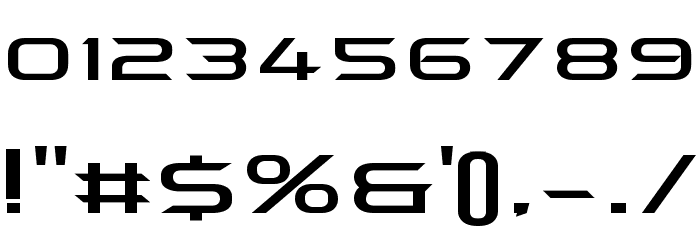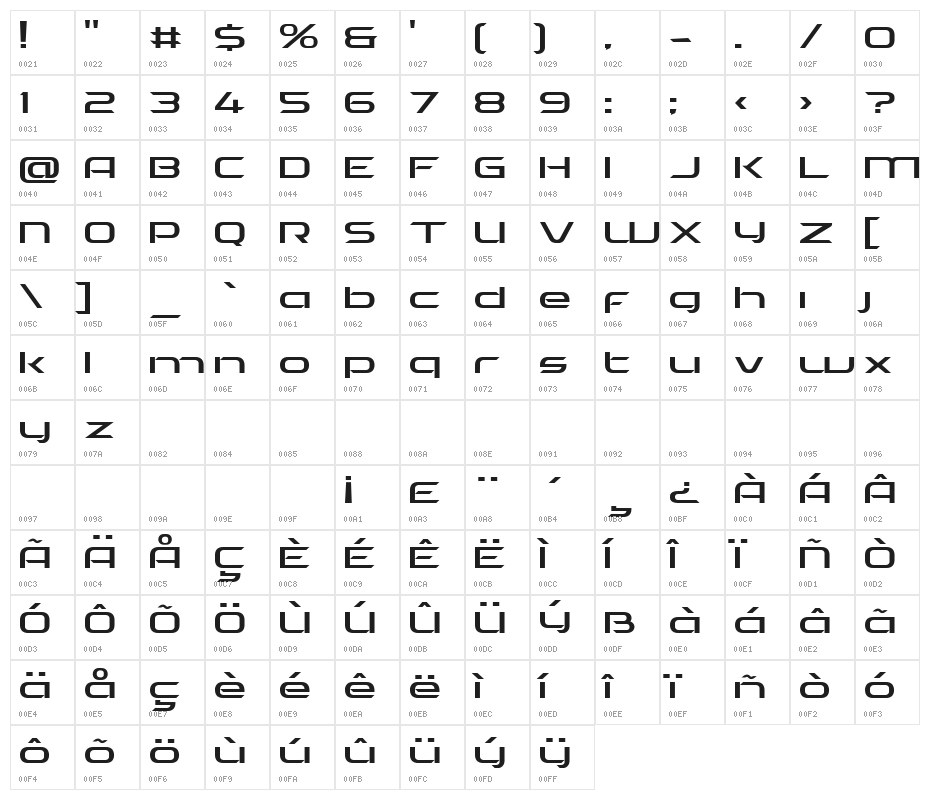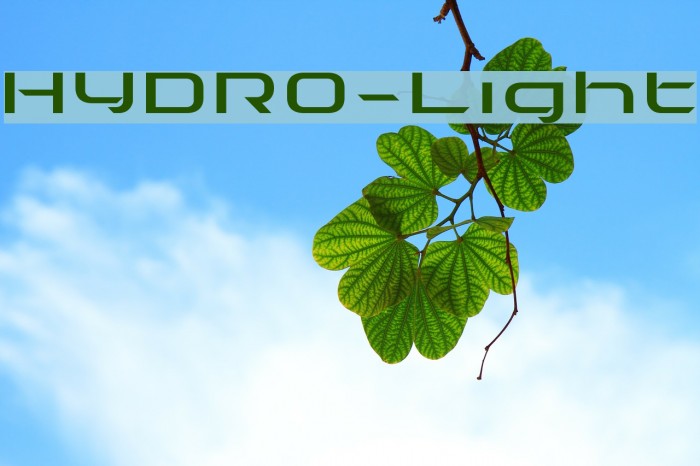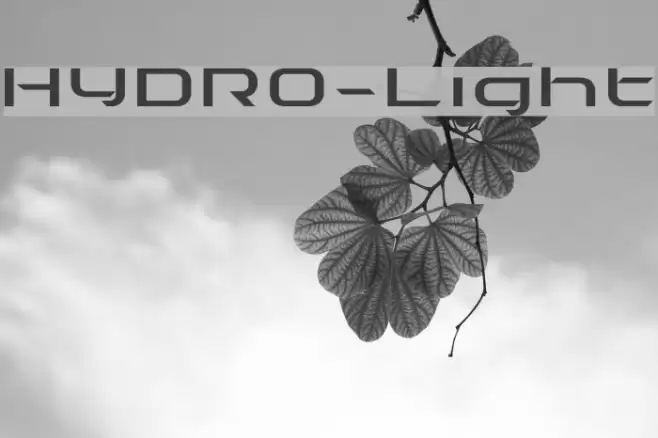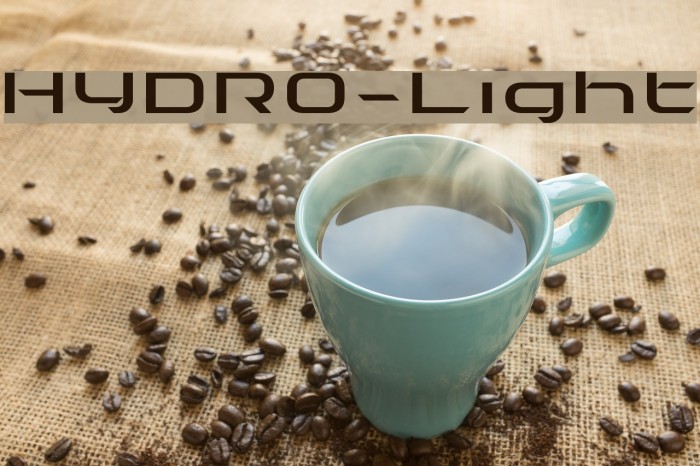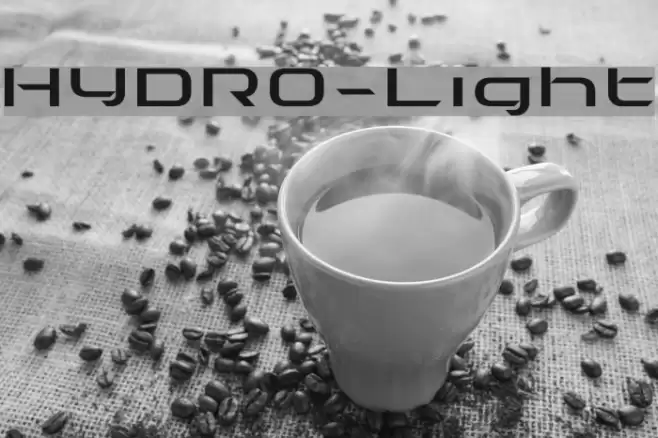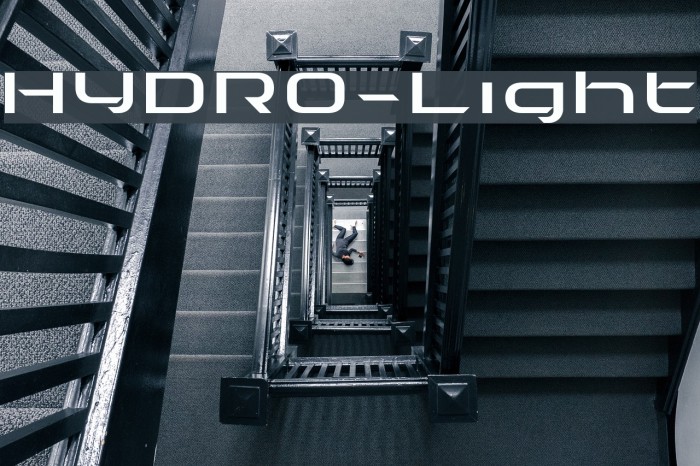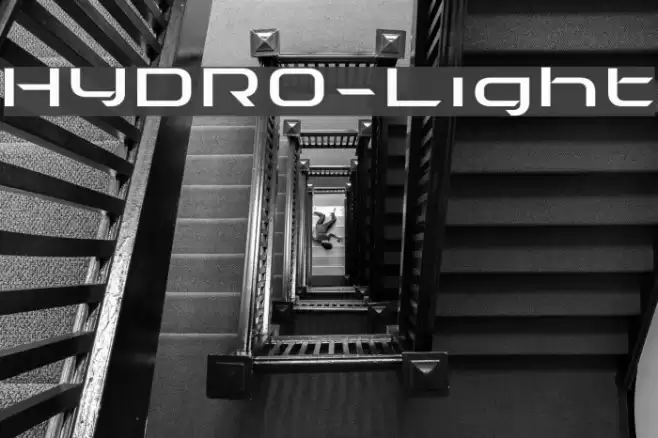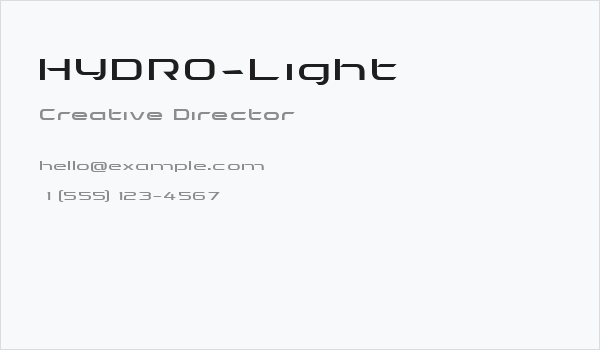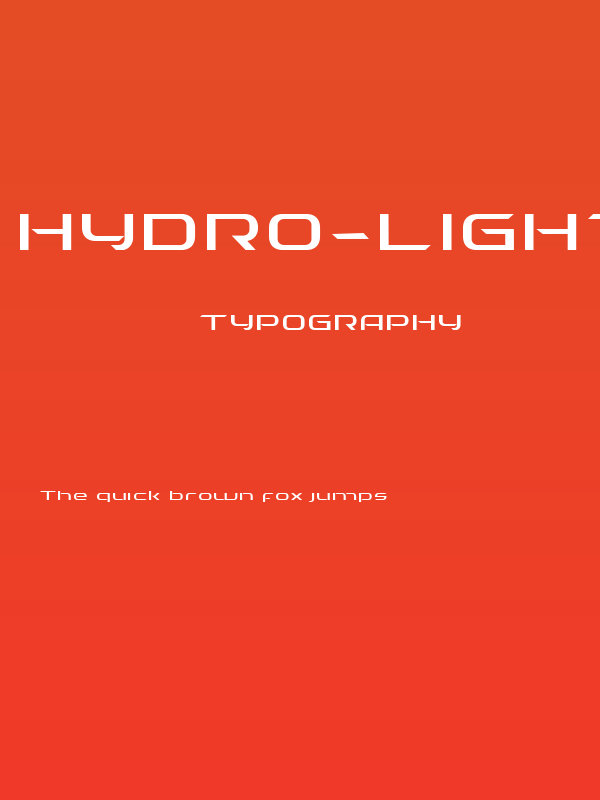
HYDRO-Light Font
This font features a futuristic and sleek design, characterized by its geometric and angular letterforms. The uppercase and lowercase letters maintain a consistent style, with sharp edges and a modern aesthetic. The numerals and special characters follow the same design principles, ensuring uniformity across all glyphs. The font's clean lines and minimalistic approach make it suitable for contemporary design projects. It balances readability with a distinctive style, making it ideal for use in technology-related branding or modern editorial layouts.
Overall StyleFuturistic
Proposed ProjectsIdeal for technology branding, modern editorial layouts, and futuristic design projects.